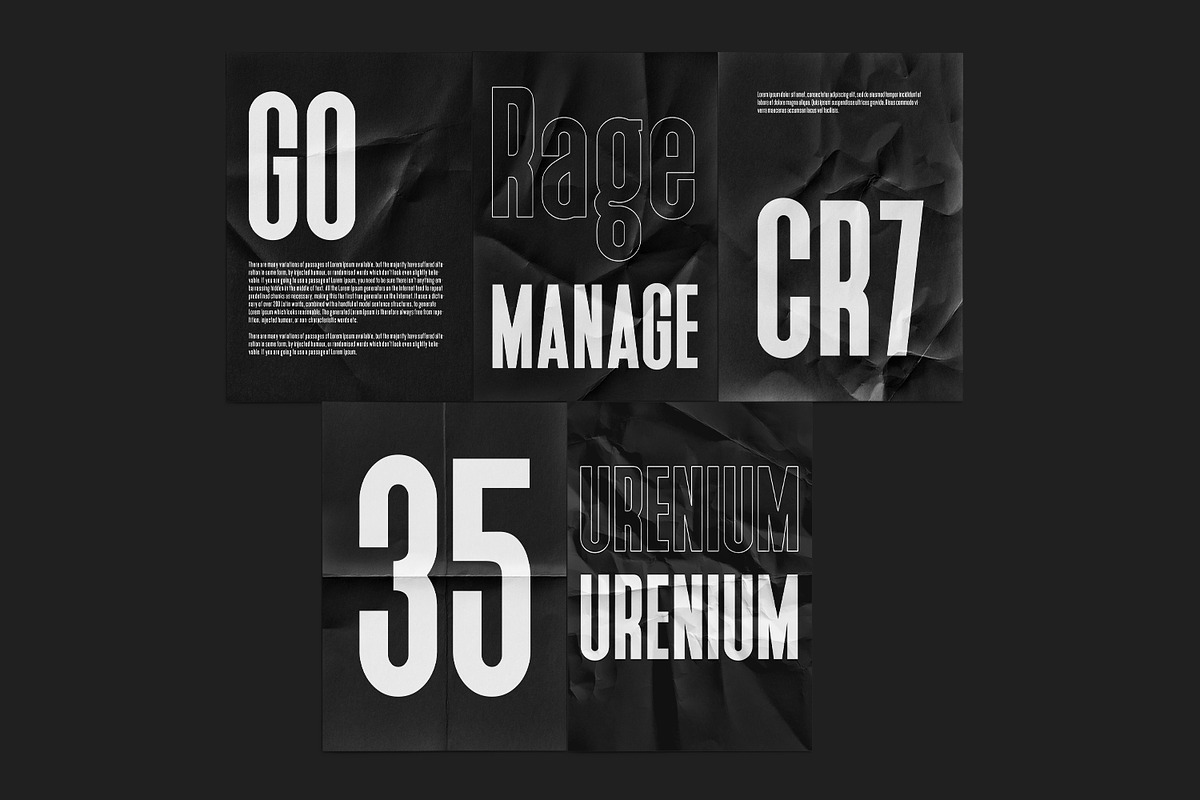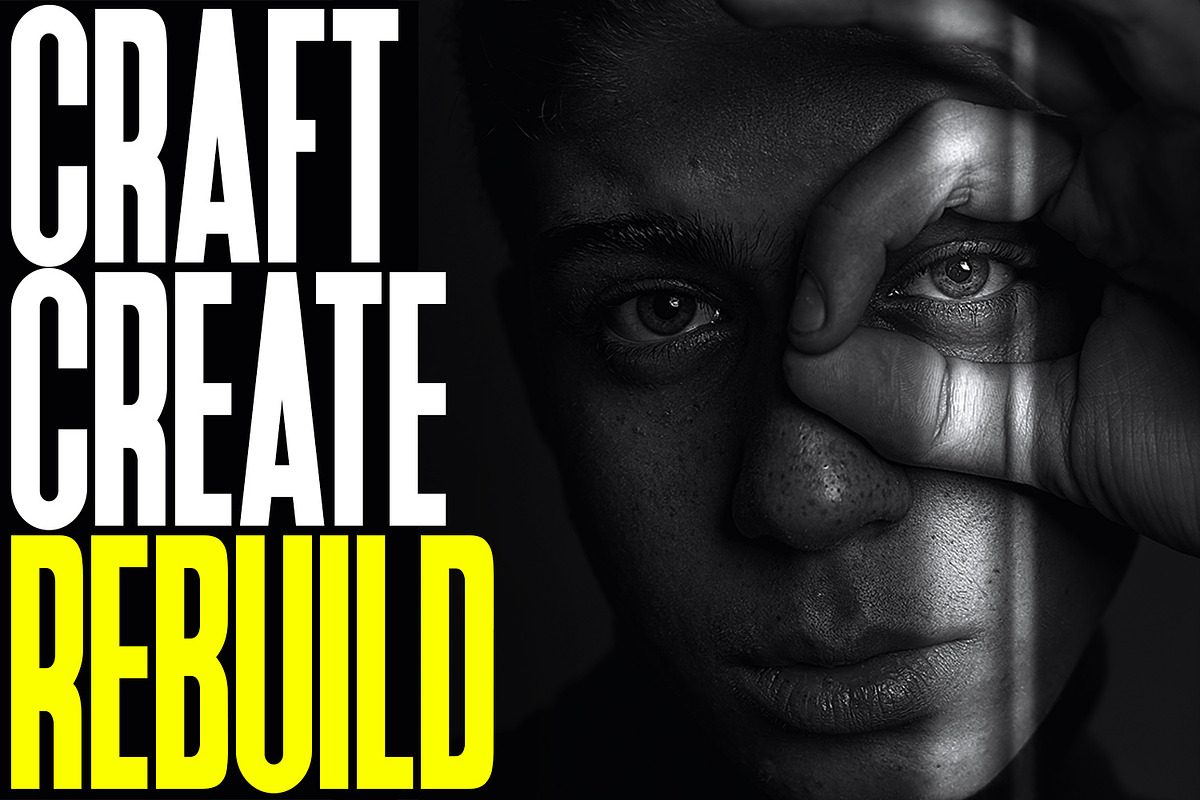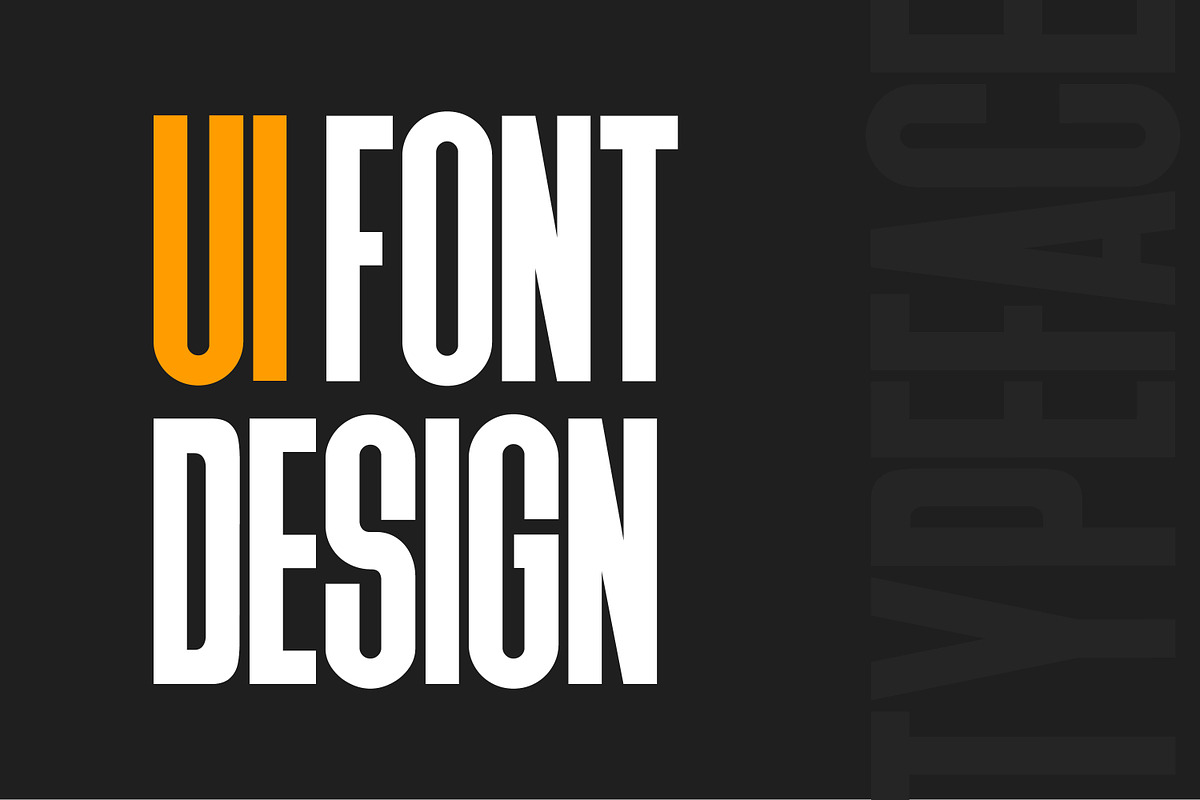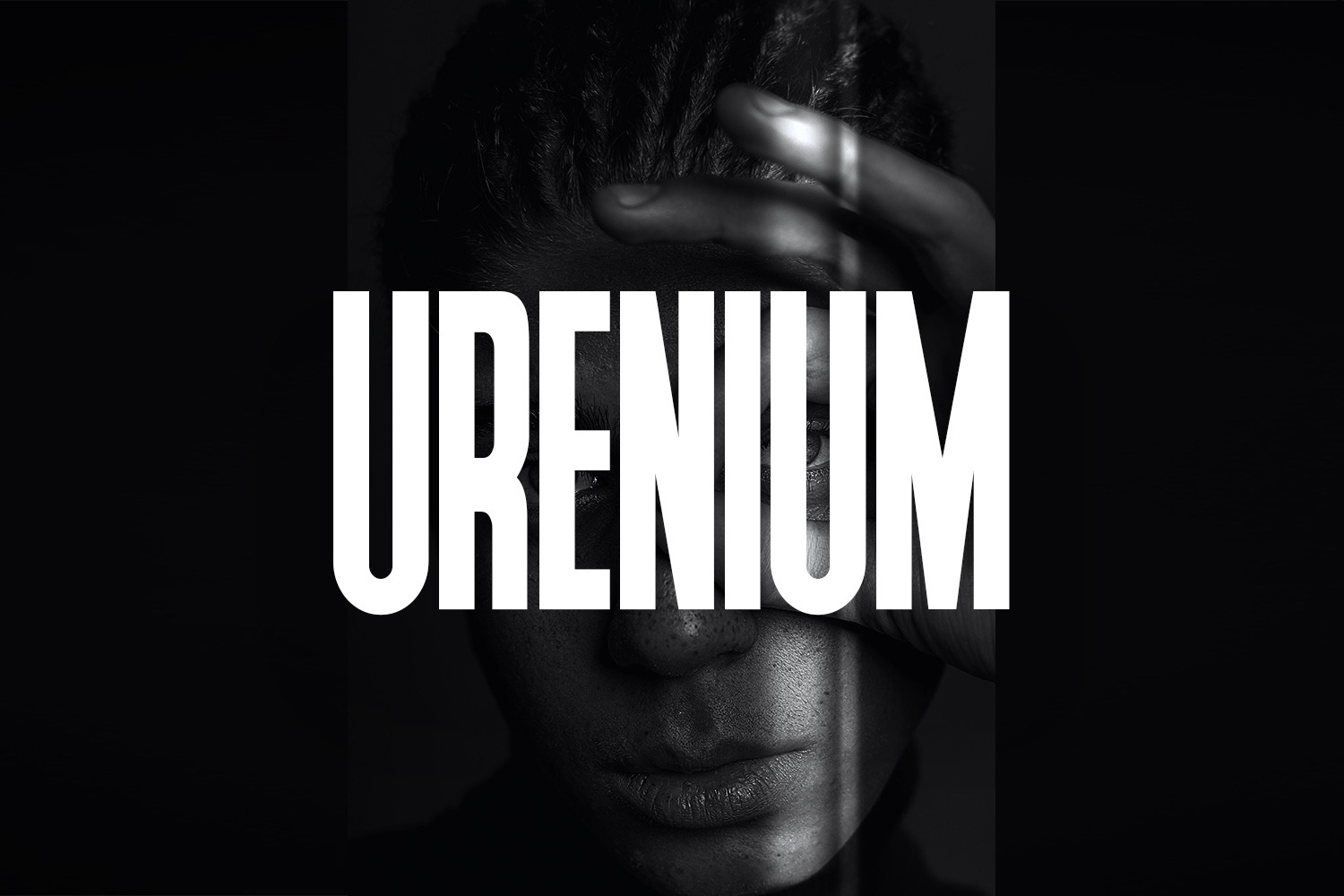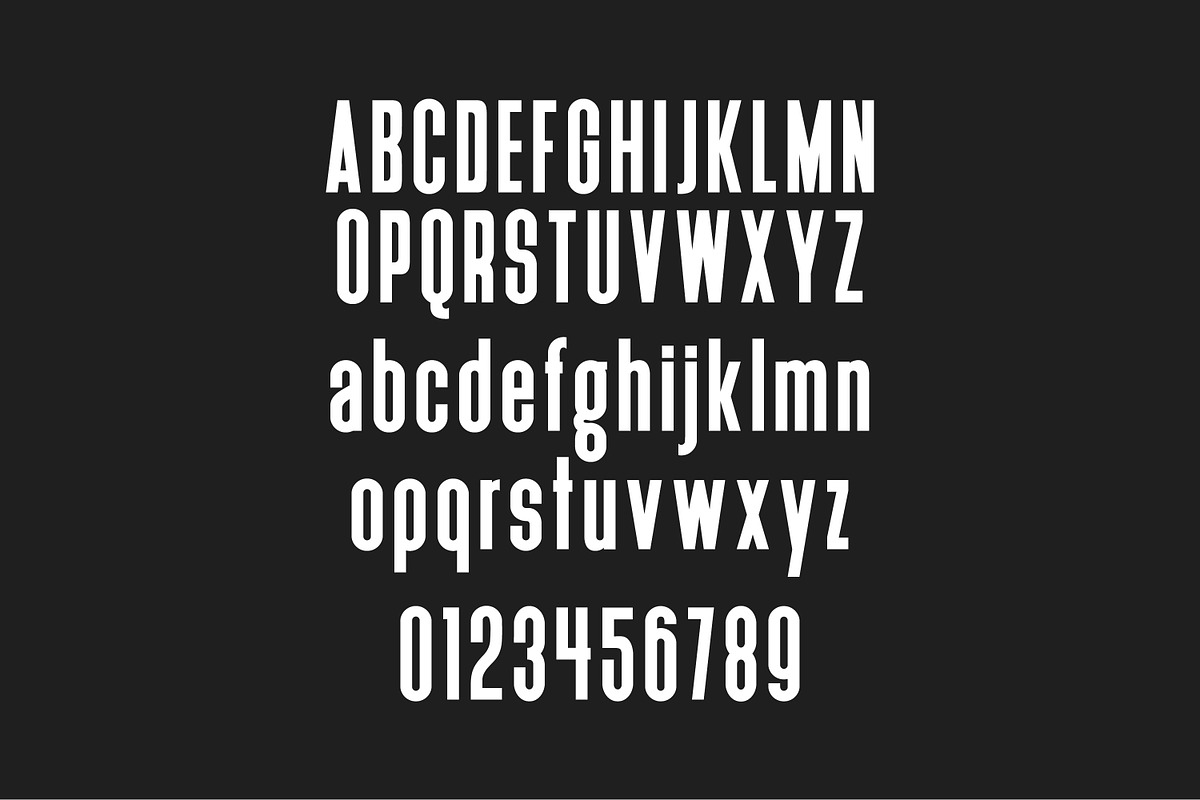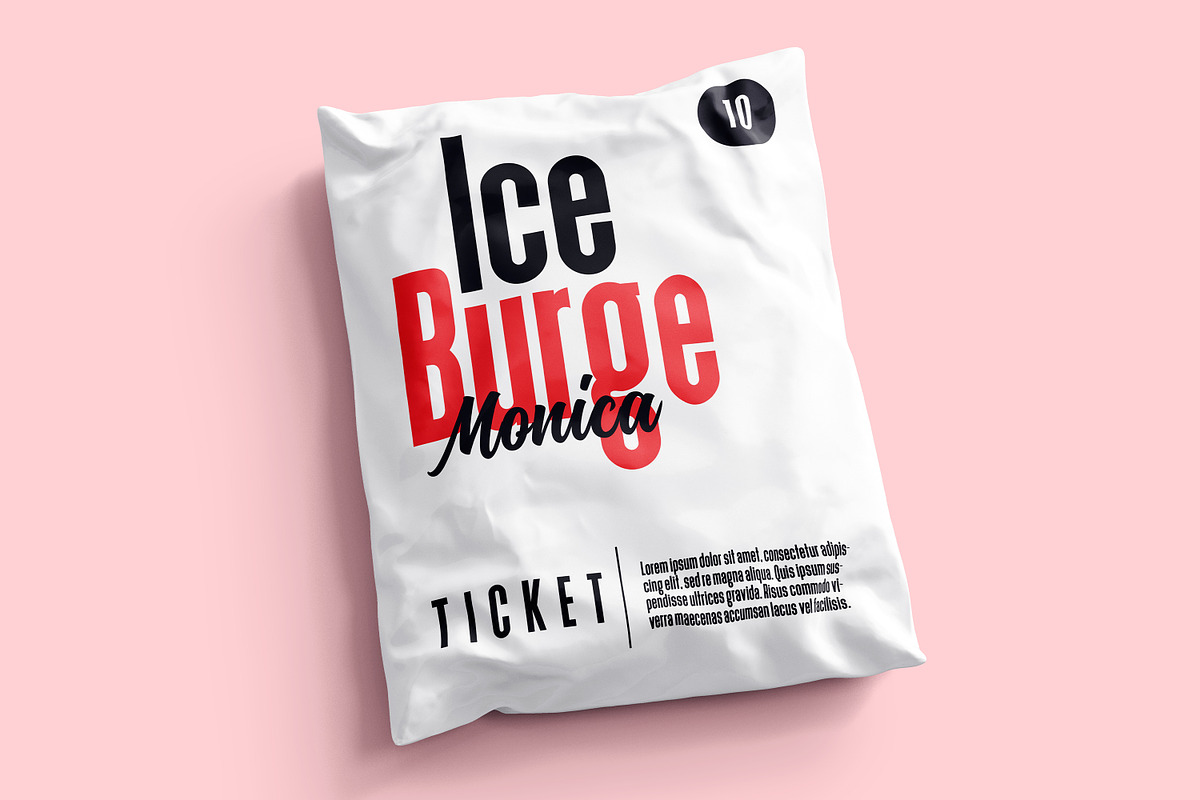
Urenium Poster Typeface
Urenium is a cool, modern and bold display font. Whatever the topic, this font will be a wonderful asset to your font library, as it has the potential to enhance any creation.